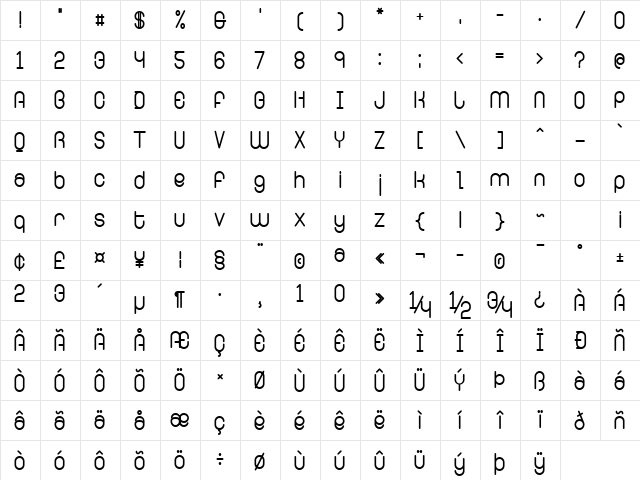
Ringer Bold Free Font
Ringer Bold
Foundry: M￿ Greb￿
Designer: M￿ Greb￿
Ringer Family
Ringer Bold
Design Context for Ringer
Ringer is a composed and adaptable typeface that performs quietly and consistently across a wide range of design contexts. Its bold stroke weight gives it real presence on the page.